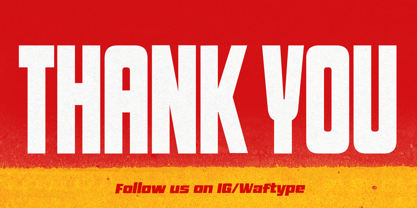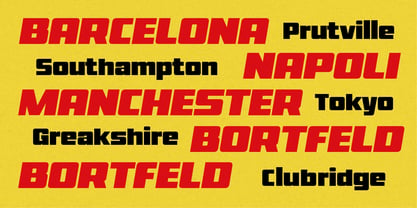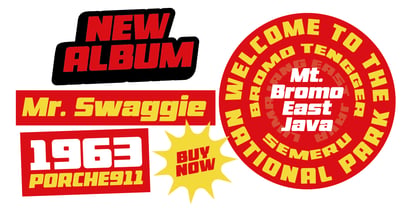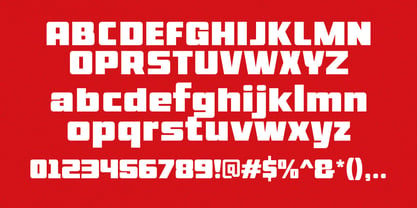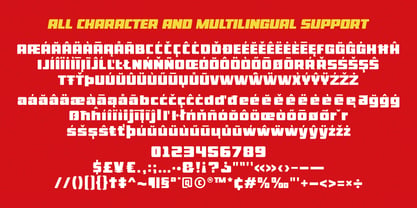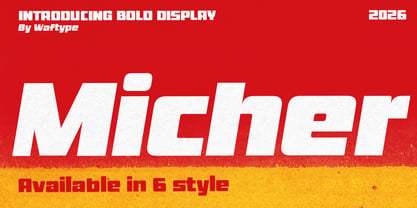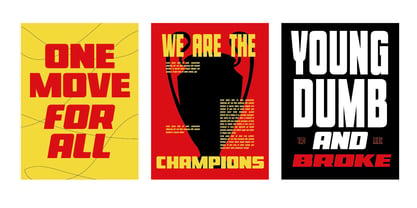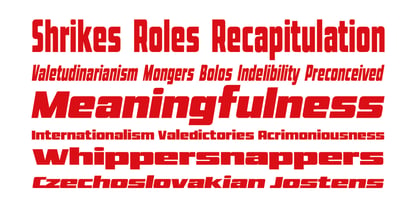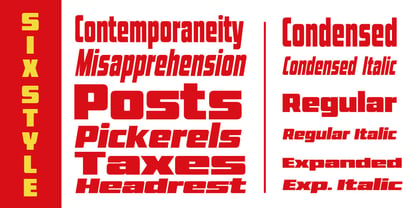
Micher
by Waftype
The Micher Font Family was designed by Wafi Zimamul and published by Waftype. Micher contains 6 styles and family package options. More about this family
Micher is a bold typeface inspired by 80s comic covers, featuring iconic square letterforms. This font was born from extensive experimentation, resulting in the unique design you see today. Micher offers 6 available styles, allowing you to choose the perfect fit for your needs. Whether you're looking for a striking headline or a playful accent, Micher delivers versatility and character. If there is anything that needs to be improved, please do not hesitate to contact me. Thank you.